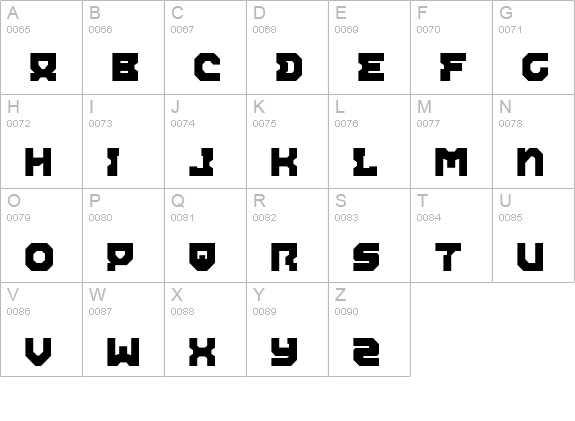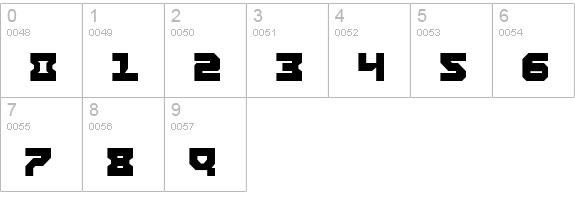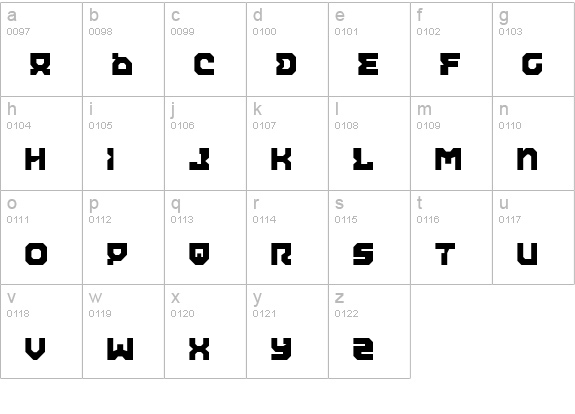
Airacobra Alt is a sleek and modern typeface that exudes sophistication and style. With its clean lines and sharp angles, this font is perfect for a wide range of design projects, from branding to editorial layouts. The Airacobra Alt font family includes a variety of weights and styles, making it versatile and adaptable to different design needs. One of the best things about Airacobra Alt is that it is completely free to download. You can easily access this stunning font at FontsMarket.com and incorporate it into your projects without any cost. Whether you're working on a website, a print design, or any other creative endeavor, Airacobra Alt is sure to elevate your work and make a lasting impression. Don't miss out on this amazing opportunity to enhance your designs with the Airacobra Alt font - download it for free today!